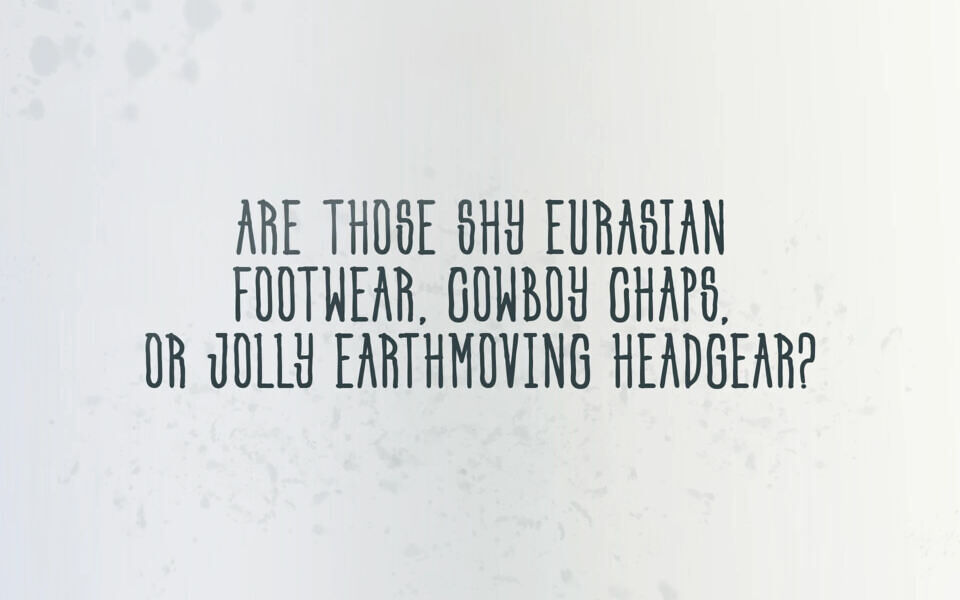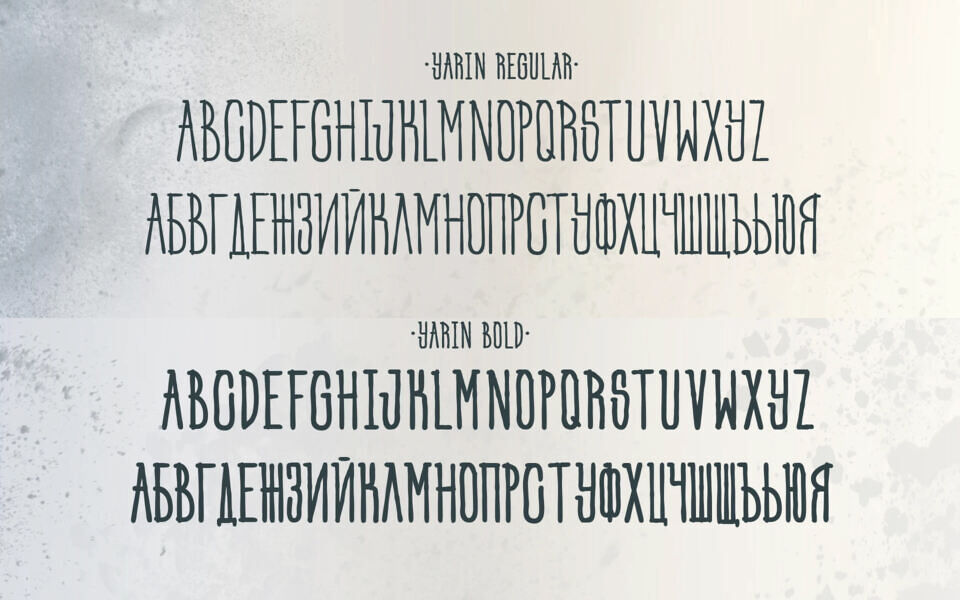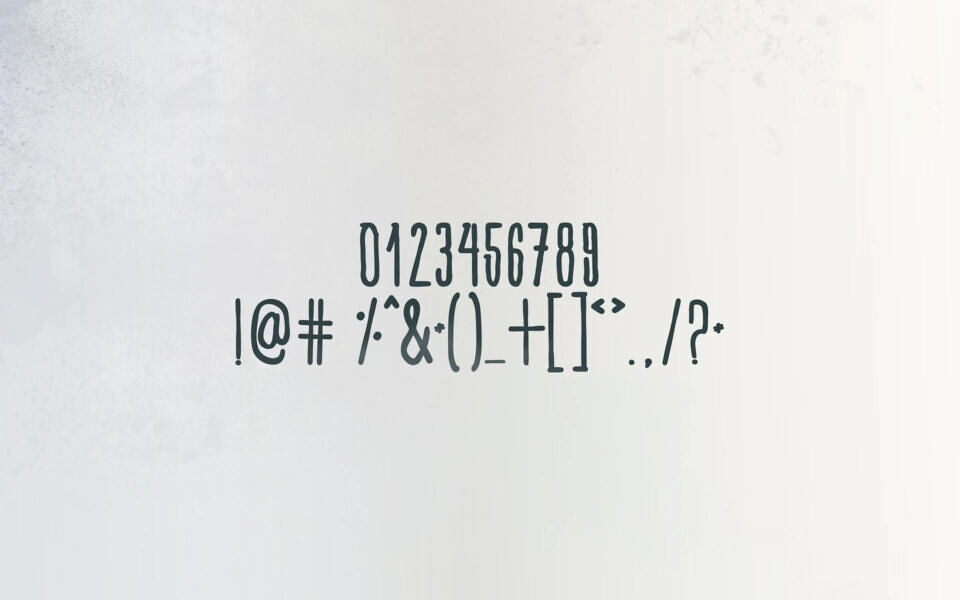
Yarin is a handwritten font created by Mario Pandeliev, inspired by the carefree spirit of summer. With a style that resembles personal handwriting, it’s perfect for short, modern, and vibrant text—ideal for slogans, logos, presentations, branding, and other creative projects.
Yarin supports both Cyrillic and Latin alphabets (including Extended Latin), and comes in Regular and Bold weights.